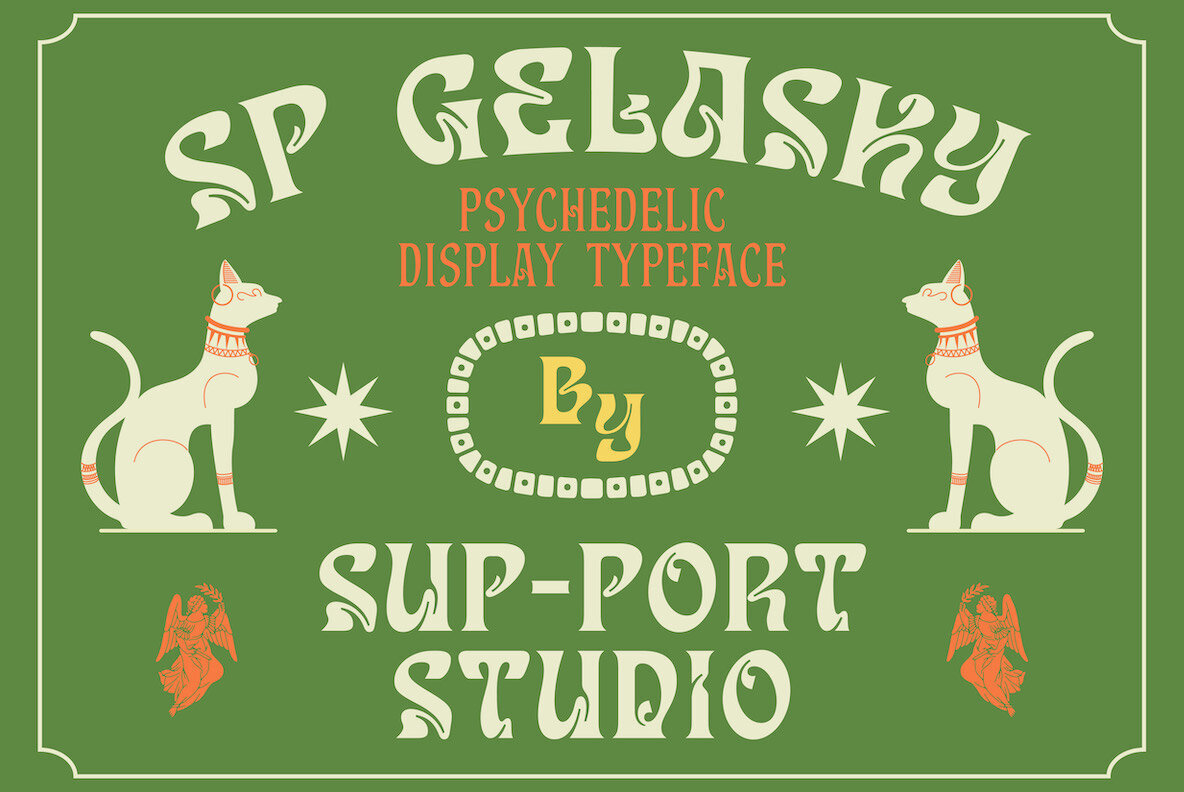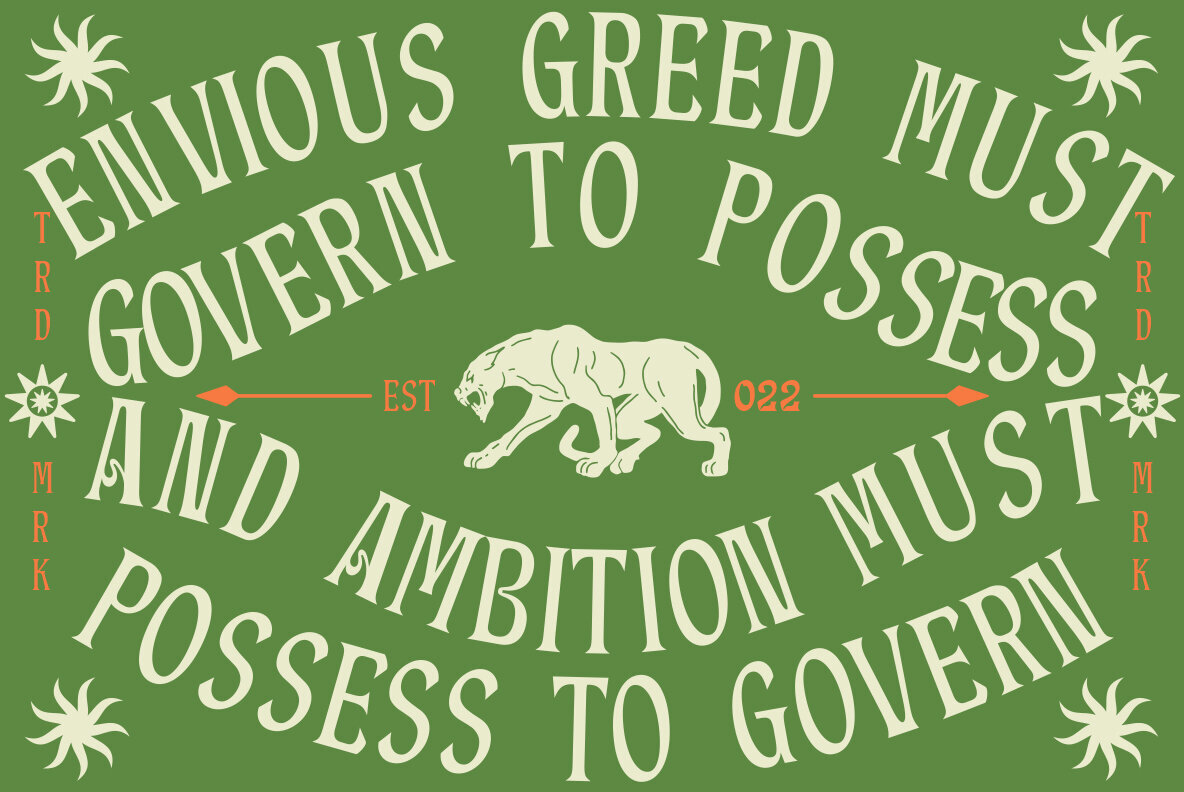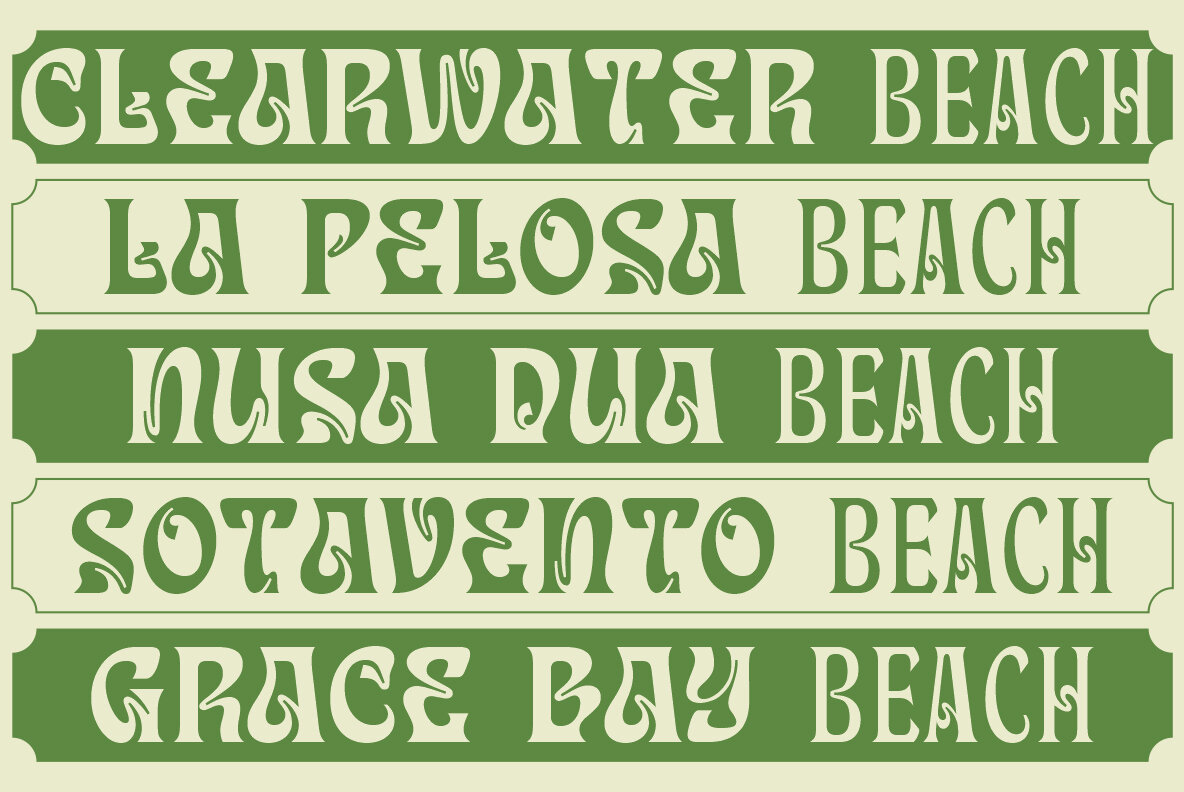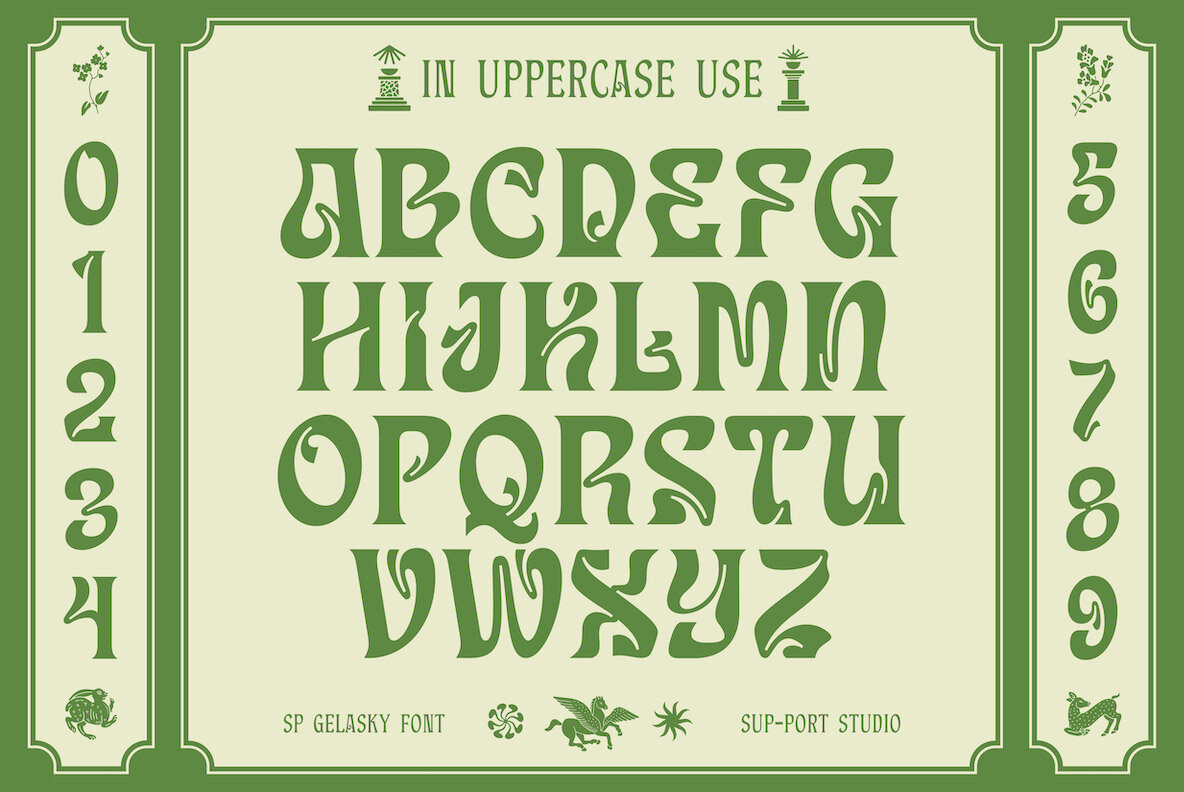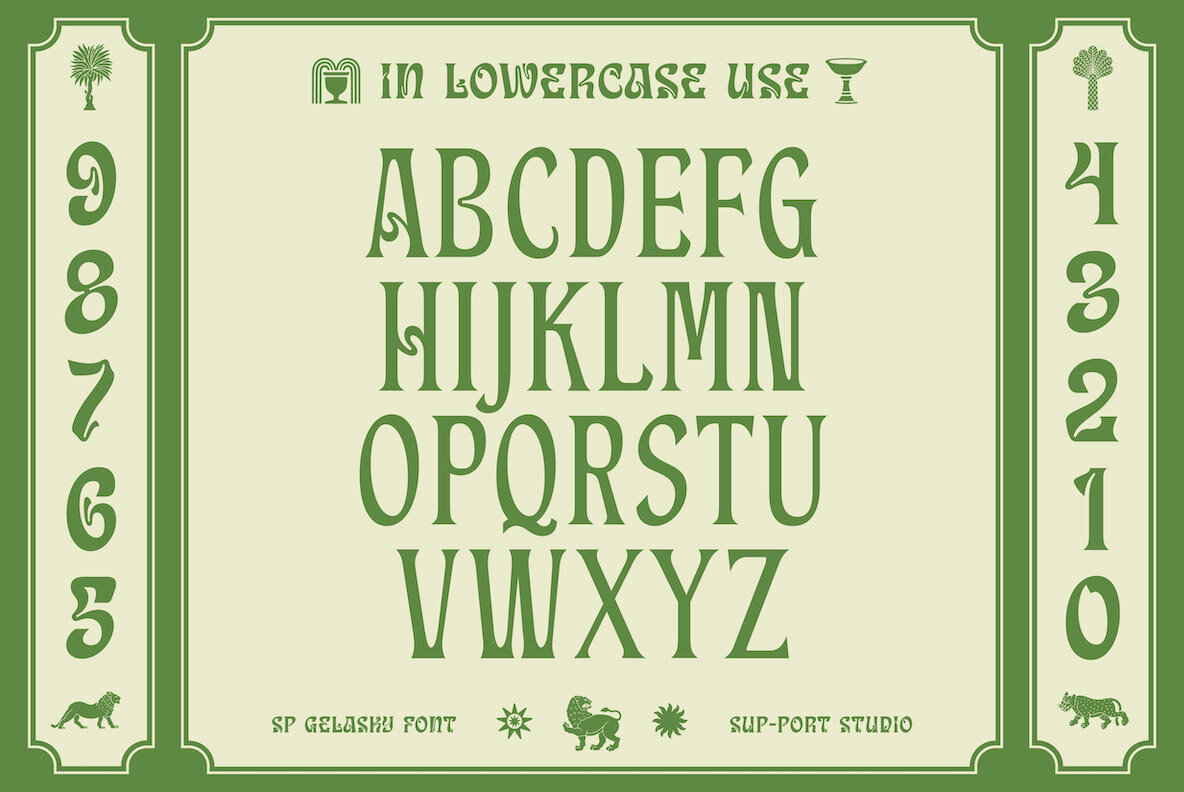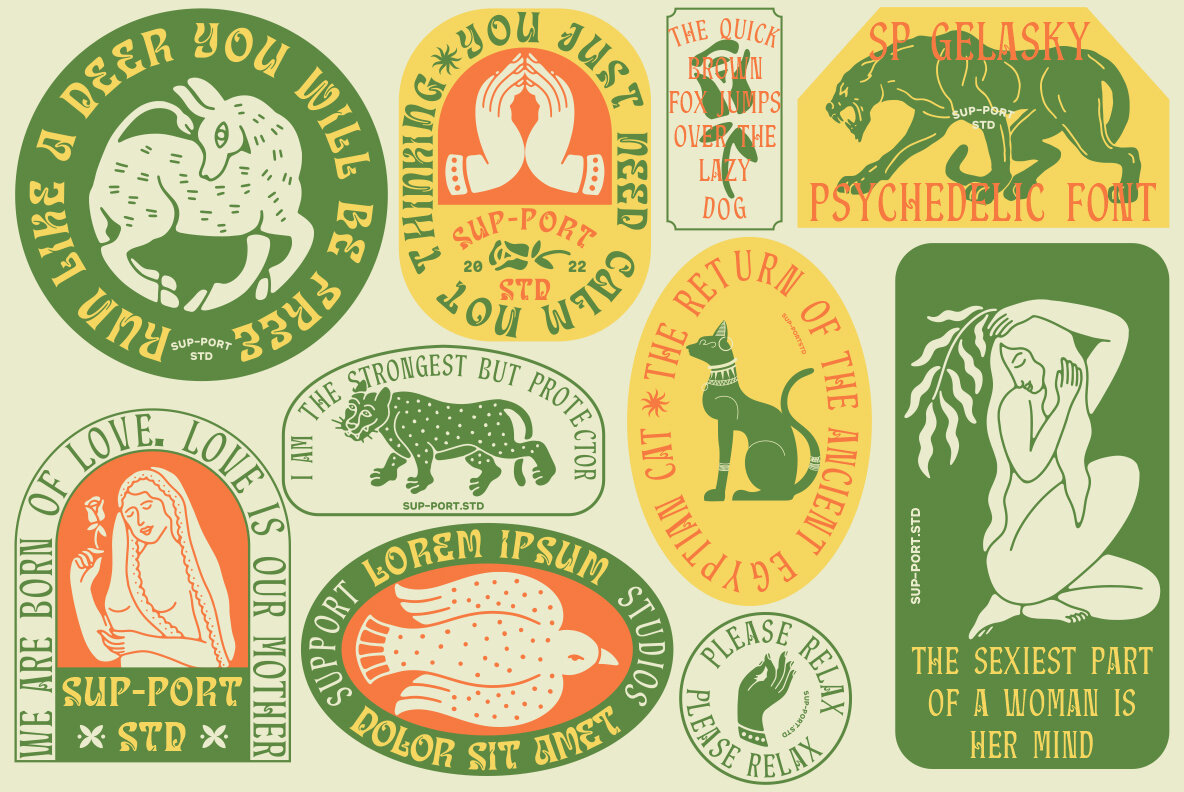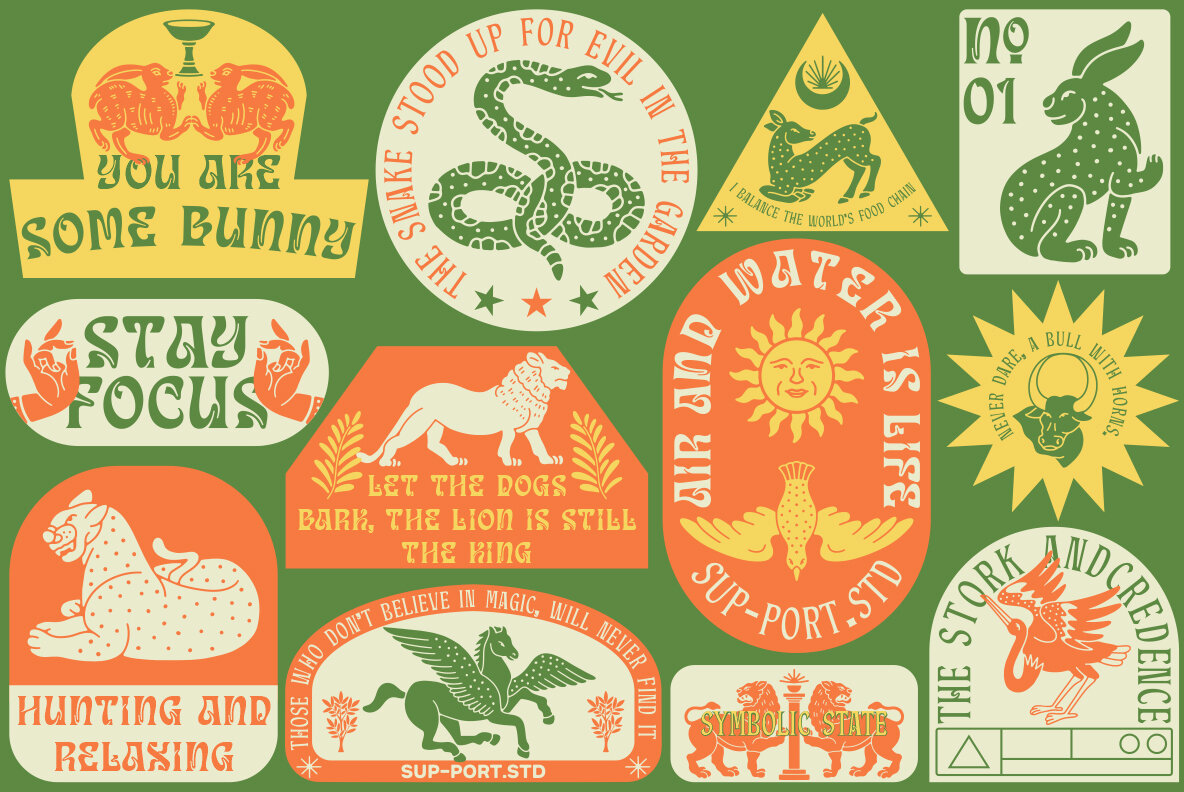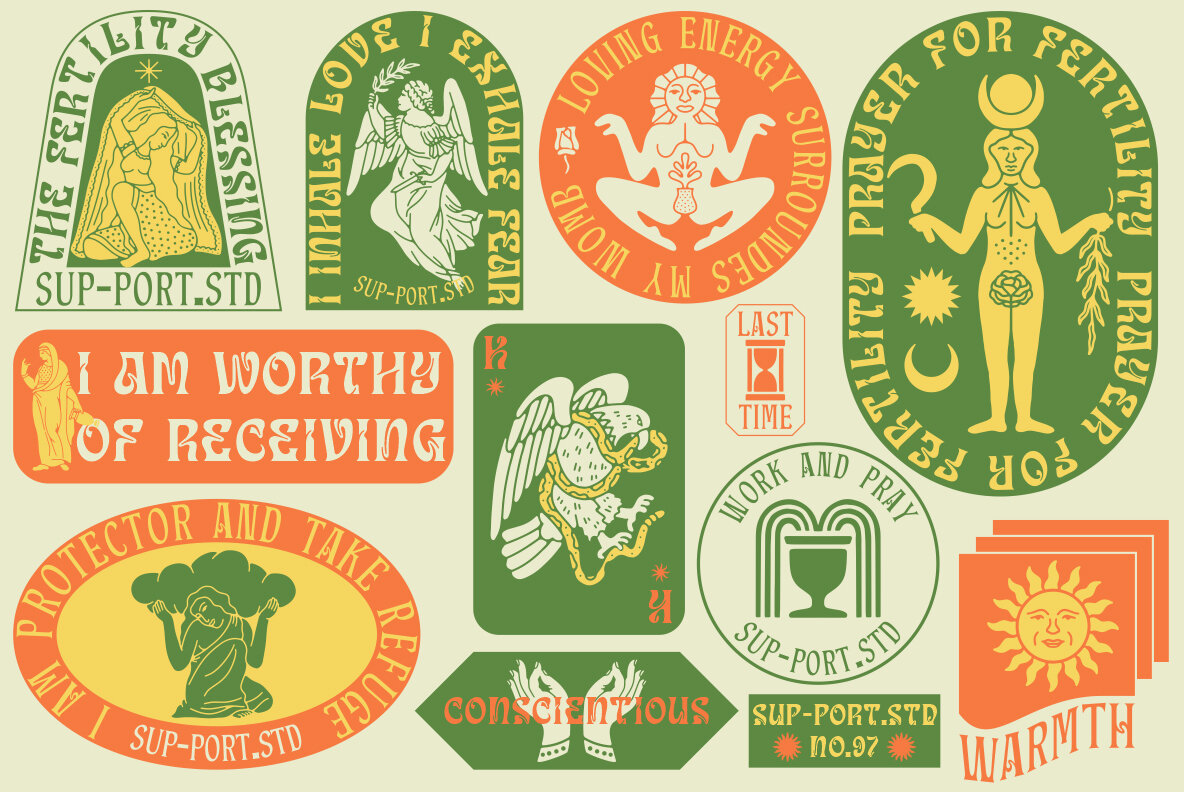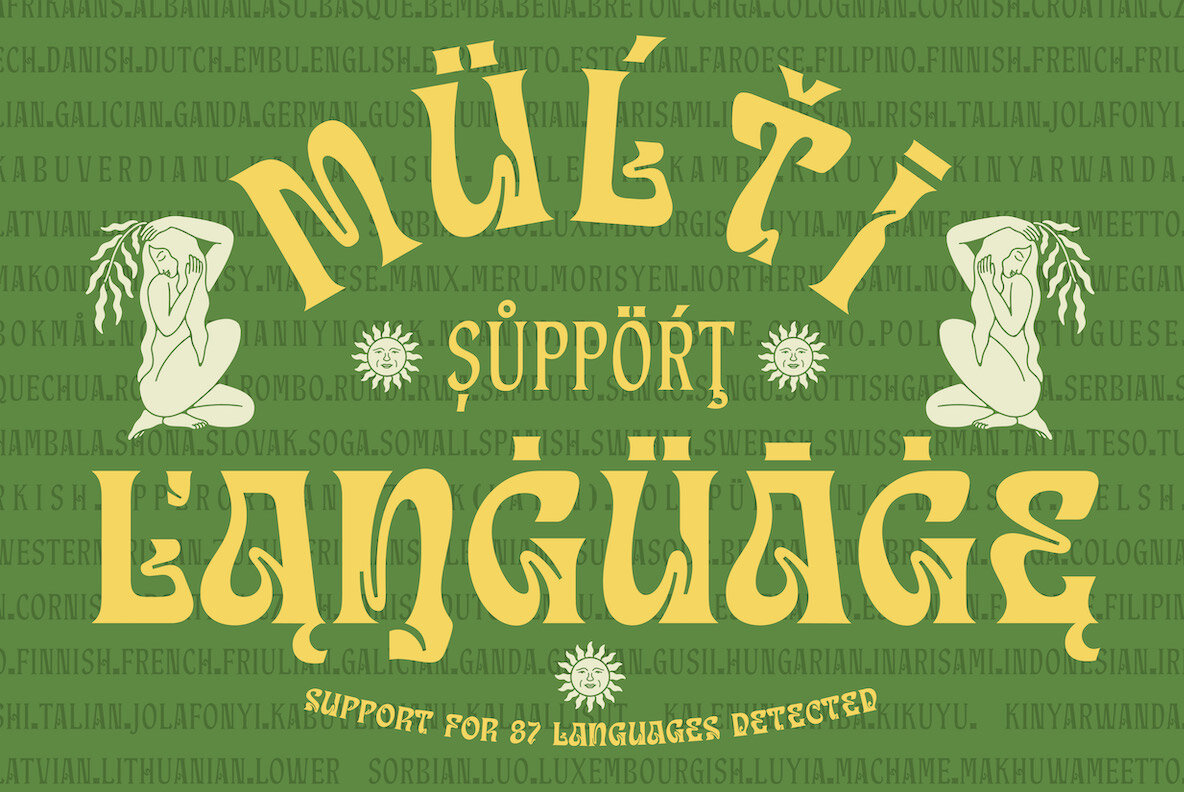
SP Gelasky: A Psychedelic Fusion in Typography
Embrace the vibrant and enchanting essence of SP Gelasky, a distinctive font from Sup-Port Studio. This compelling typographic collection combines two dynamic styles in one font, presenting a psychedelic flair that is current yet versatile.
SP Gelasky merges medieval influences with a modern vintage aesthetic, offering a unique typographic expression. This bundle includes 81 free vector illustrations that elevate your design work, making it suitable for an array of creative endeavors. Whether it's for branding, logos, or printed materials, this font provides the versatility and style your projects require.
Features:
• Two styles in one font
• 81 free vector illustrations
• Multilingual support